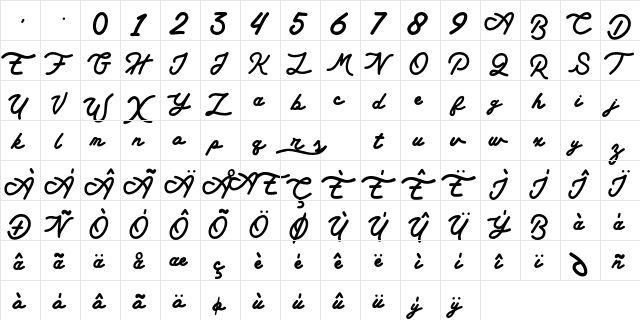
Quotes Regular
Design Context for Quotes Typeface
Quotes is a composed and adaptable typeface that performs quietly and consistently across a wide range of design contexts.